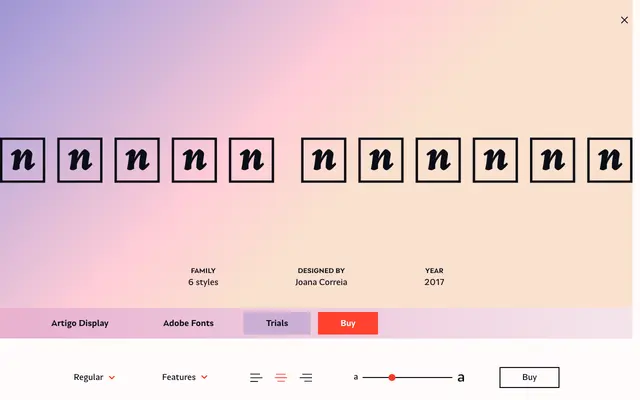
Artigo Display
Nova Type Foundry · Joana Correia · 2017
A display italic by Joana Correia that draws on handwriting shapes, released in six weights and awarded a Certificate of Typographic Excellence by the Type Directors Club in 2018.
Conceived as an expressive counterpart to the Artigo text typeface, this display family pushes the italic toward a more calligraphic register suited to headlines and large-scale setting. Six weights from ExtraLight to Black give it range across editorial and branding contexts. Oldstyle figures and ordinals are included as OpenType features, and Latin coverage extends to a broad range of European languages.
Described by the foundry as a contemporary interpretation of handwriting shapes in a display version of the italic, with expressive personality distinct from its text companion; classified as display given its orientation toward large-scale use and calligraphic italic structure.